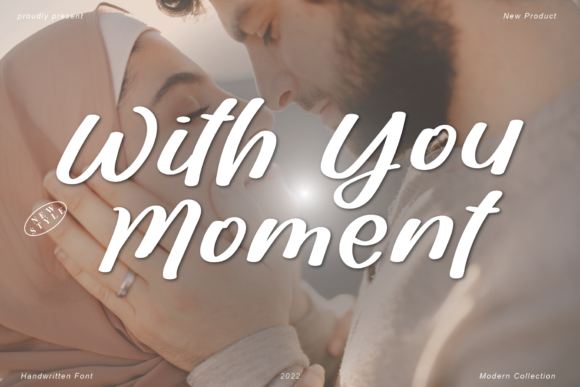
In the realm of creative expression, where words dance across the canvas of your imagination, allow me to introduce you to With You Moment Font, a script font family that will captivate your senses and leave an imprint of elegance on your digital creations. Crafted by the talented hands of hl_studio, With You Moment is not merely a font; it's an artistic journey that awaits your exploration.
Picture this: a product package adorned with the flowing lines of With You Moment, its delicate curves whispering the allure of your brand. The magazine covers come alive with an enchanting allure, drawing readers into a world of captivating stories. Social media posts shimmer with a touch of sophistication, capturing the attention of your audience and leaving them craving more. Wedding invitations, imbued with the timeless beauty of With You Moment, carry the promise of love and togetherness, while personal projects radiate with an air of exclusivity.
With You Moment is more than just a font; it's an expression of your individuality, a reflection of your unique style. Whether you seek to create a captivating logo that reflects the essence of your brand or design a poster that speaks volumes, With You Moment stands as your trusted companion. Its versatility knows no bounds, adapting seamlessly to your creative vision and transforming your ideas into tangible masterpieces.
Its elegant swashes, reminiscent of a graceful dance, add a touch of whimsy to your designs, while its carefully crafted ligatures lend an air of sophistication and cohesion. Each letterform, meticulously designed with love and attention to detail, harmonizes perfectly with the next, creating a symphony of visual delight.
Don't settle for ordinary fonts that blend into the background; embrace the extraordinary with With You Moment. Let your words take flight, carried by the wings of With You Moment's exquisite artistry. Experience the power of expression, the joy of creativity, and the satisfaction of crafting designs that resonate with your audience.